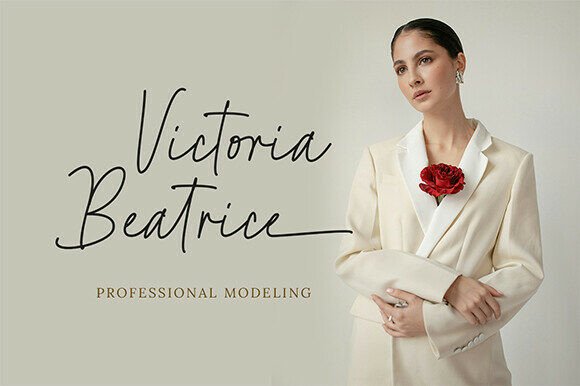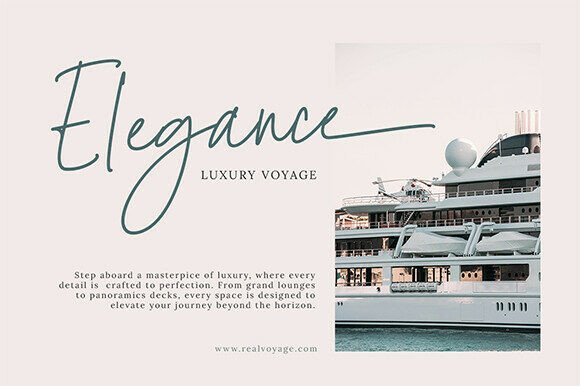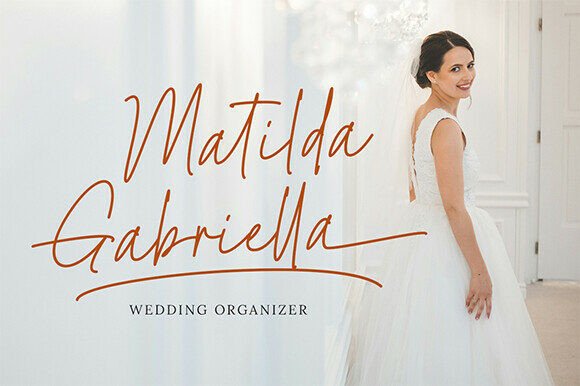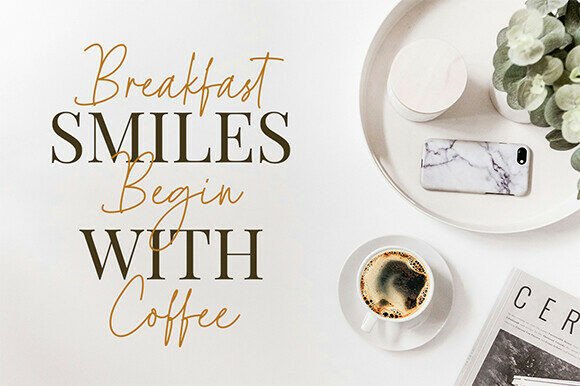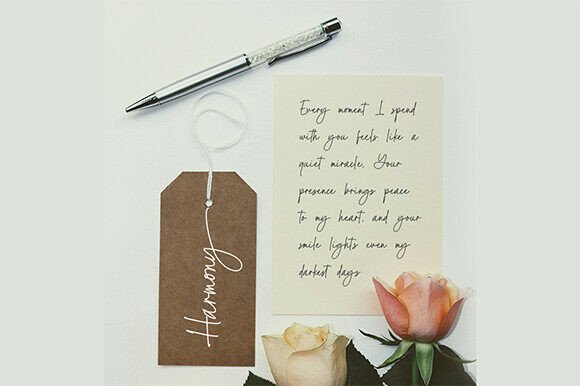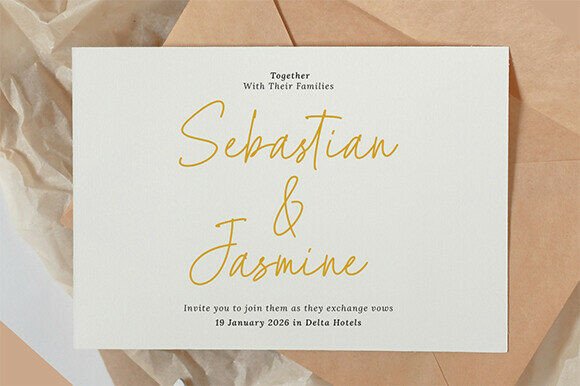
The Art of Storytelling, One Font at a Time
Have you ever sat down with a pen and paper, watching as your thoughts and ideas flow onto the page in a beautiful, imperfect dance of strokes and curves? That’s the magic of handwriting – a unique blend of personality, emotion, and expression. As designers, we’re constantly seeking ways to capture that essence in our digital creations, and that’s where the Golden Storyline Font comes in.
This luxurious handwritten font is more than just a pretty face – it’s a tool for telling stories that feel authentic, personal, and refined. With its intricate hand-stroked details and special line curves, the Golden Storyline Font captures the modern essence of handwriting while exuding a high-end aesthetic that’s perfect for luxury brands, fashion designers, and anyone looking to add a touch of elegance to their work.
For designers, the Golden Storyline Font is a valuable asset – a way to add depth, emotion, and personality to their projects without sacrificing professionalism. Whether you’re creating a logo, a brochure, or a website, this font is sure to help you tell your story in a way that’s both beautiful and memorable.
Key Features of Golden Storyline Font
- Unique Characteristic: The Golden Storyline Font features a unique blend of modern and vintage elements, with subtle golden accents that add a touch of sophistication.
Designer Review: Golden Storyline Font
✨ I really appreciate the elegant, hand-drawn feel of the Golden Storyline Font. The unique curves and flourishes add a touch of sophistication to any text, making it perfect for luxury branding or high-end marketing materials. The font also comes in a range of weights, from light to bold, allowing for versatility in design applications.
- ✨ The font’s versatility in terms of application, including body text, headings, and even logos.
- ✨ The high level of customization options, including color, size, and spacing.
- ✨ The font’s unique aesthetic, which sets it apart from more generic sans-serif fonts.
⚠️ However, I do find the font to be a bit overused in some design circles. This can make it feel less unique and more like a cliché. Additionally, the font’s high level of detail can sometimes make it difficult to read at small sizes or in low-resolution formats.
Overall, I think the Golden Storyline Font is a great choice for designers looking to add a touch of luxury and sophistication to their work. While it may have some limitations, its unique aesthetic and versatility make it a valuable addition to any design library.
Use the Golden Storyline font for titles, headings, and other emphasis text to create a visually appealing design.
Combine the Golden Storyline font with other fonts to create a unique and engaging design.
The Golden Storyline font is commonly used in branding, marketing materials, and design projects that require a touch of elegance and sophistication.